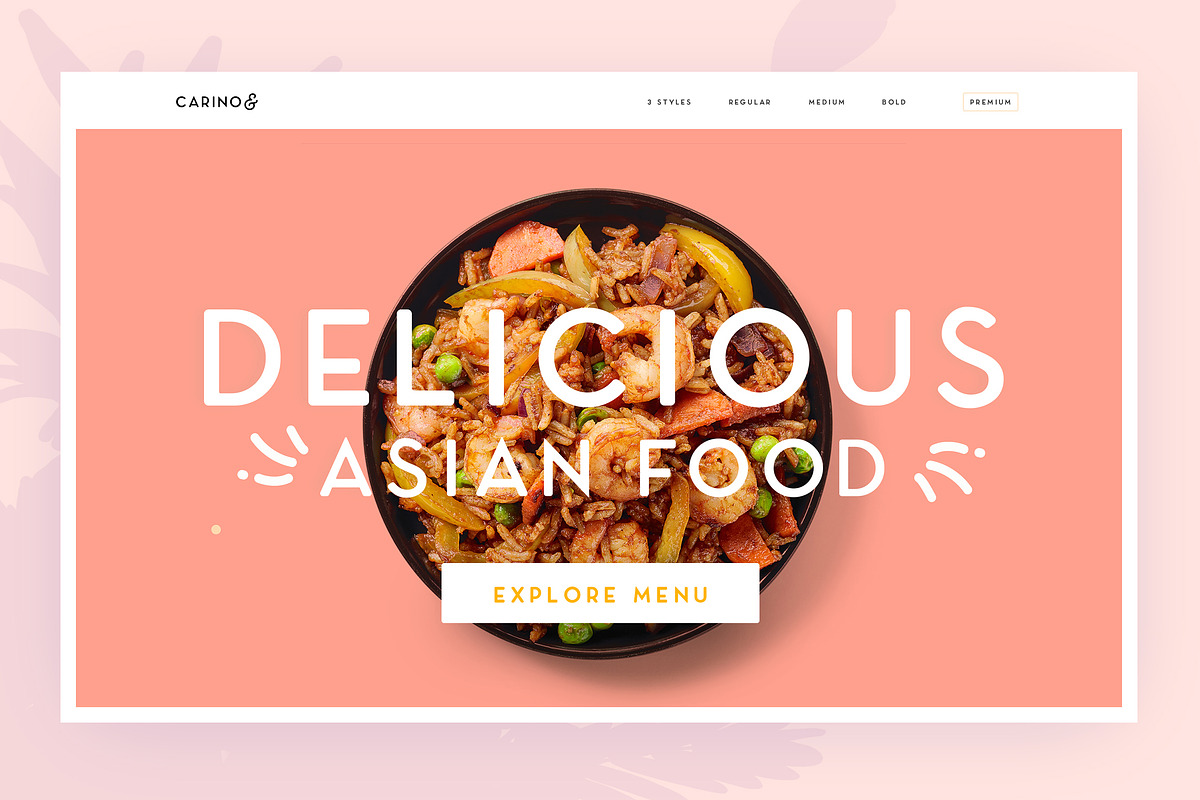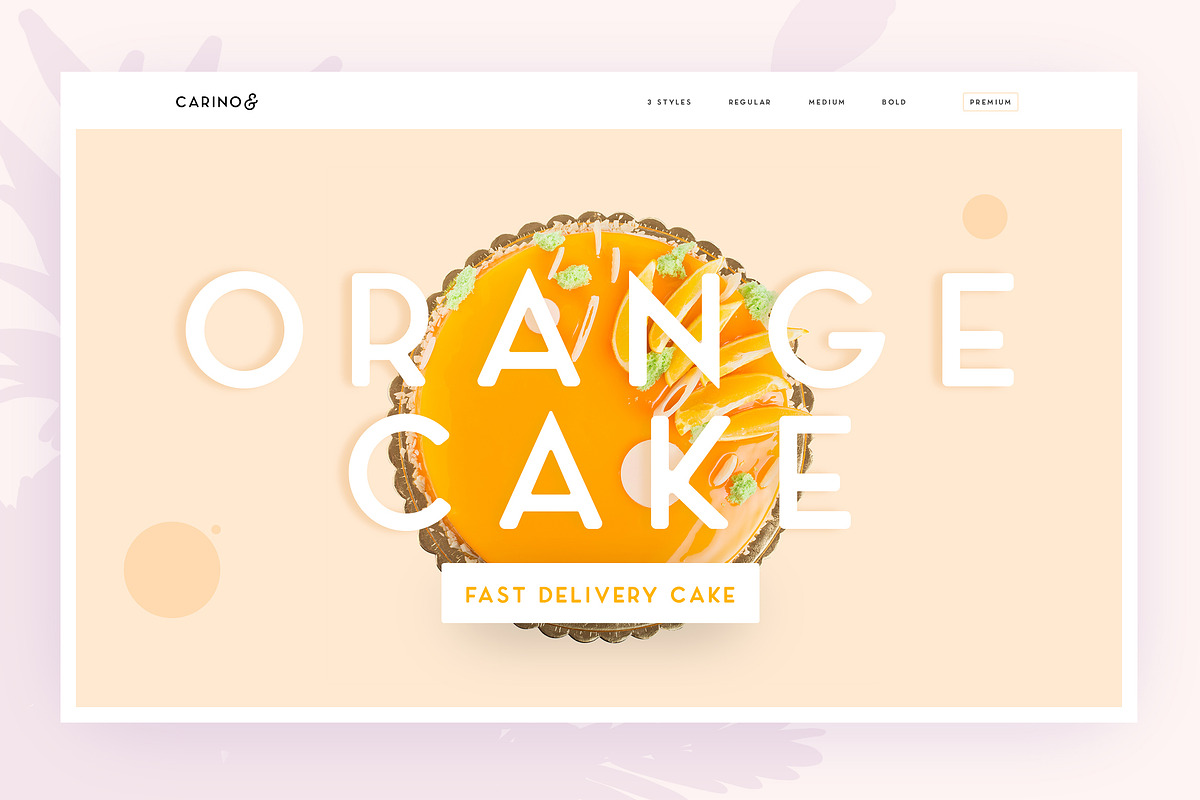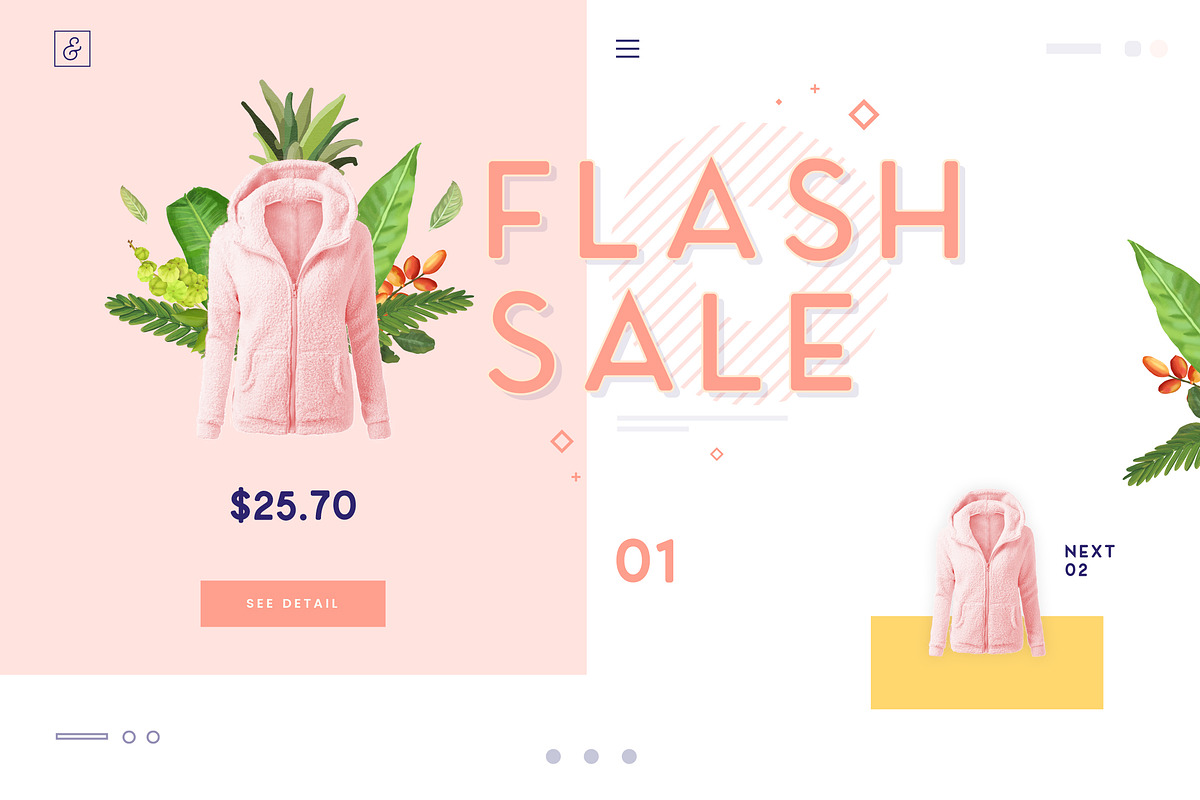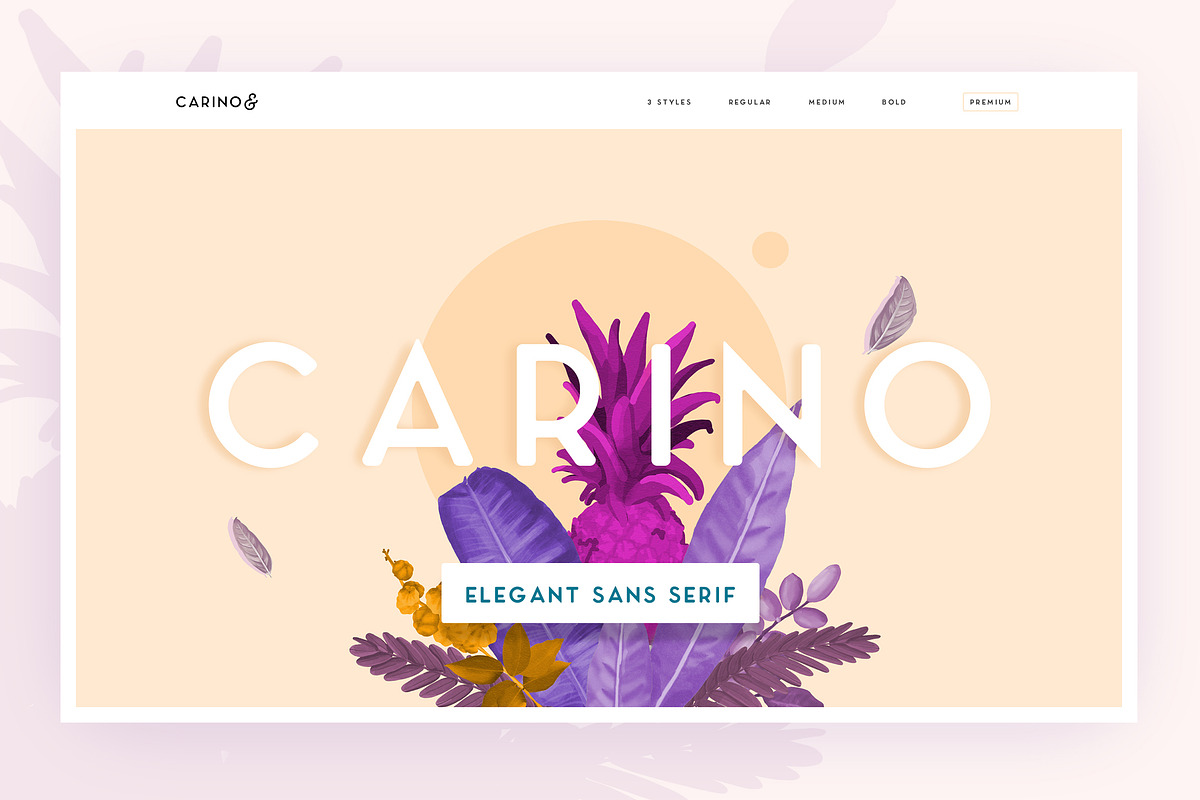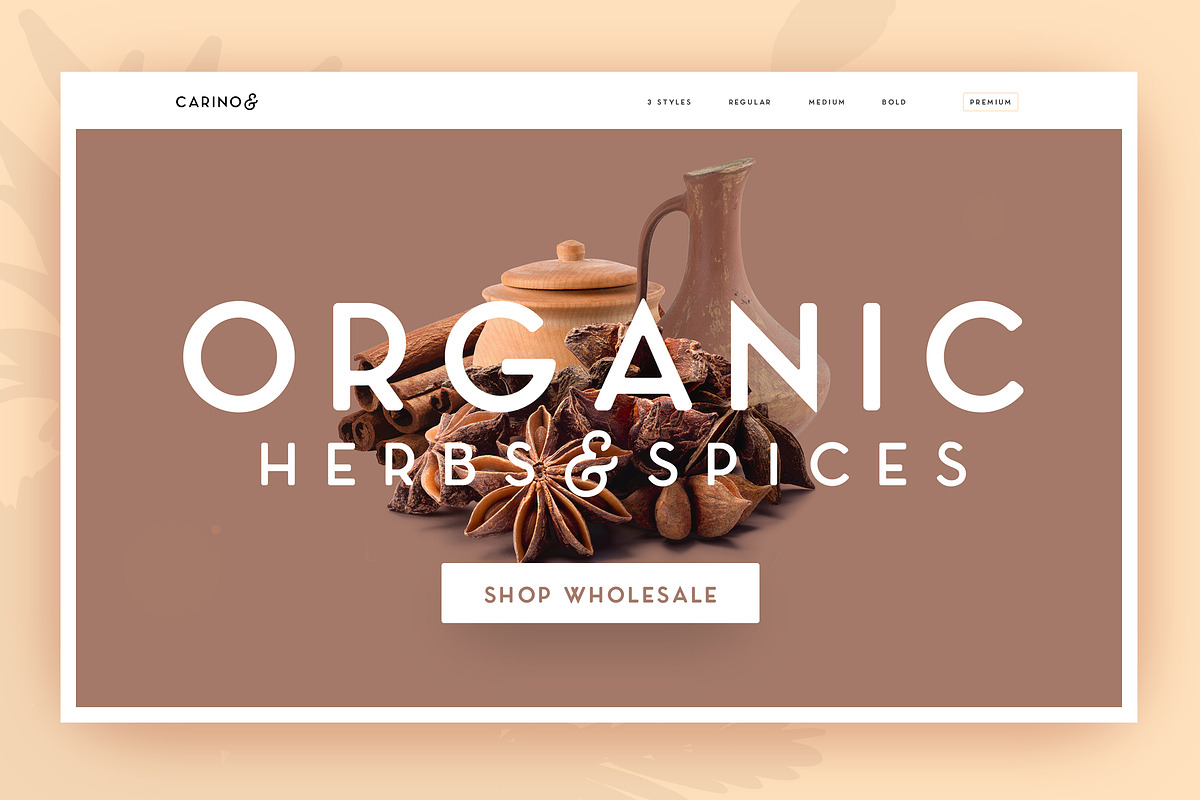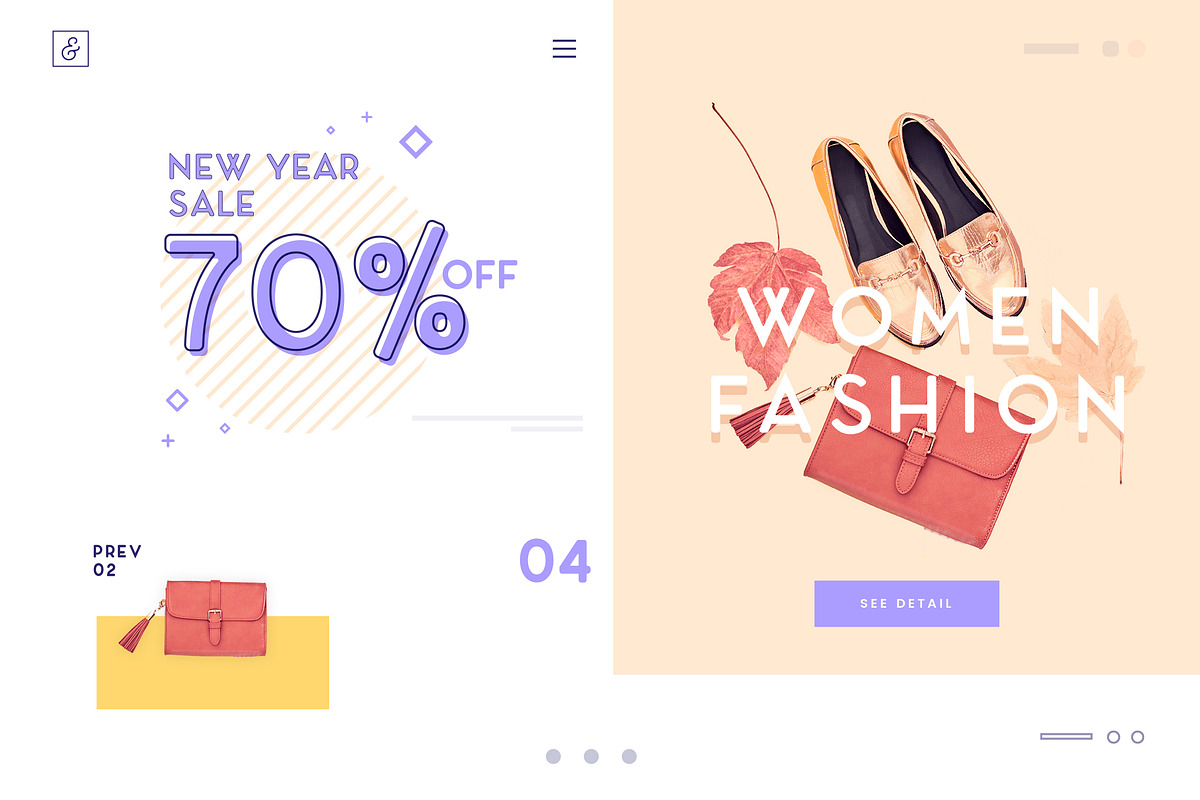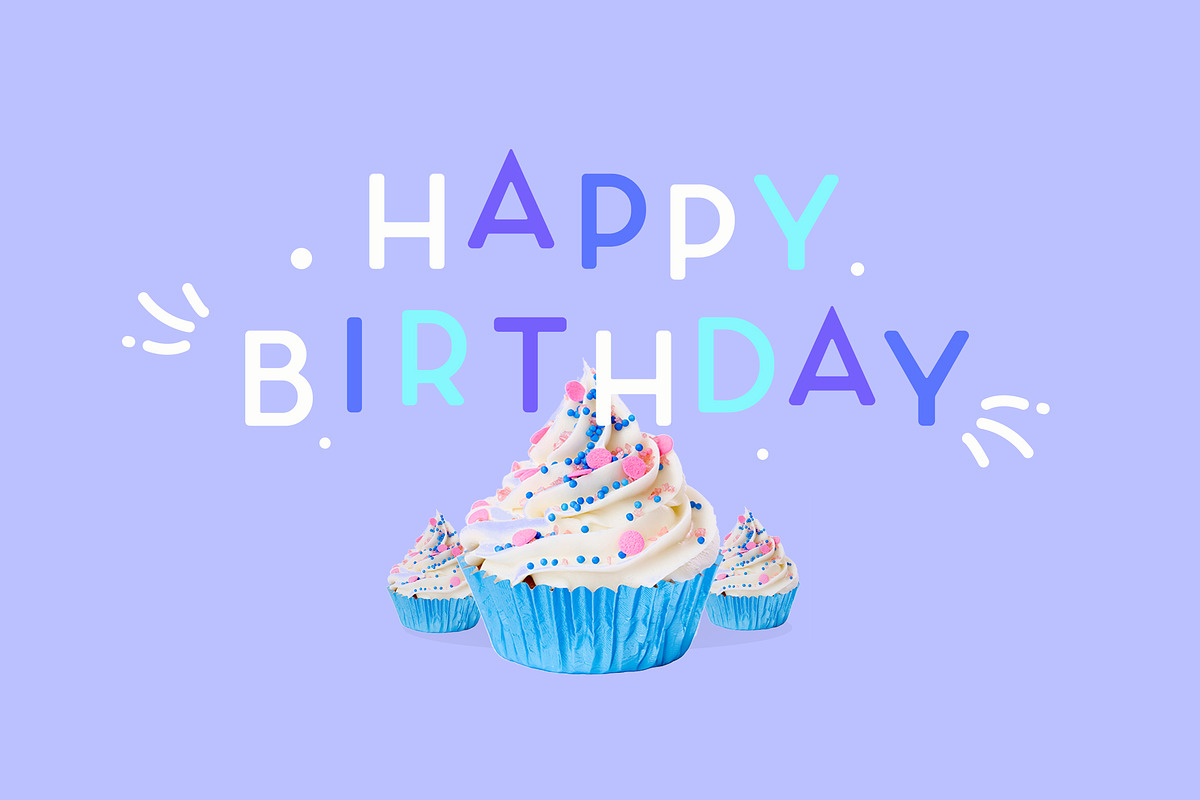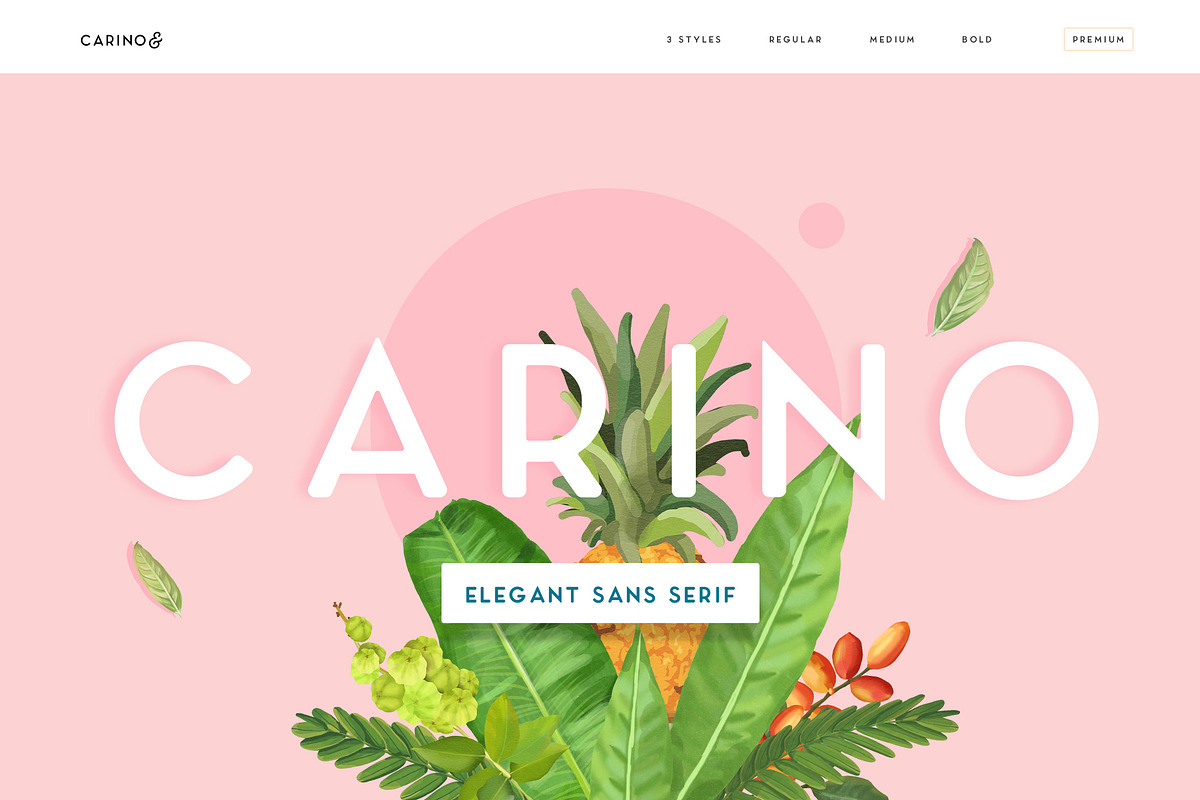
Carino - A Modern Elegant Typeface
Carino is a stunning classy modern bold all-caps sans serif that comes in three beautiful weights to complement every project you're working on. Use to create beautiful headings, gorgeous invitations, stunning logos, and so much more!! Perfect for displays, headers, invitations, save the dates, weddings, and so much more, Carino will become a playful staple in your font library!
Three font weights (Regular,Semibold, Bold)
All Uppercase Letters
Numbers + Punctuation
Multiple Languages Supported